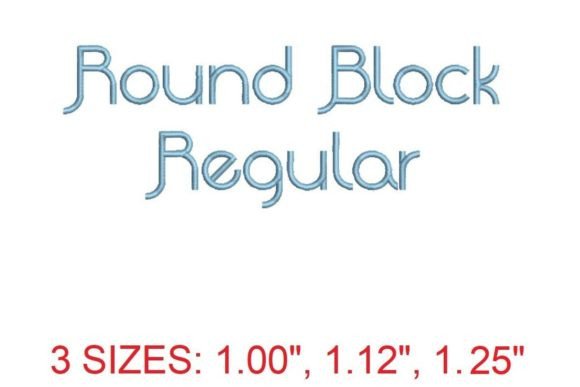
Round Block Regular Font Review
As an embroidery designer with years of experience, I'm always on the lookout for high-quality machine embroidery design that can elevate my seasonal and holiday product collections. The Round Block Regular Font from Creative Fabrica has quickly become a go-to choice for its clean, professional look and versatility across a range of handmade items. Whether you're creating personalized gifts, holiday décor, or limited-time apparel, this font offers a polished aesthetic that resonates with both customers and sellers.
First Impressions: A Timeless, Seasonal Style
From the moment I saw the Round Block Regular Font, I was struck by its balance of simplicity and sophistication. The rounded edges give it a friendly, approachable feel, while the sharp lines maintain a sense of professionalism. This makes it ideal for a wide range of holiday projects—whether you're aiming for a cozy, nostalgic vibe or something more modern and elegant.
The font's detail level is impressive. Each letter is well-proportioned and consistent, which is crucial when working on items like embroidered patches, pillow covers, or baby clothes. It doesn't feel overly ornate, which is a big plus if you're looking for something that can be used across multiple products without feeling out of place.
Emotionally, this font conveys a sense of warmth and reliability. It’s perfect for back-to-school items, but also works beautifully for holiday gifts, family matching pieces, and home decor. Its neutral yet stylish appearance makes it easy to pair with different color schemes and fabric textures.
Real-World Use in Holiday Embroidery Projects
When building a seasonal shop collection, the Round Block Regular Font proves to be incredibly adaptable. I've used it on sweatshirt embroidery, tote bag designs, and kitchen towel embroidery with great success. Its clean lines make it easy to read even at smaller sizes, which is essential for items like aprons or gift tags.
For Etsy sellers, this font is a game-changer. It adds a touch of class to personalized gifts and helps create a cohesive brand identity. When paired with creative mockups, it enhances the visual appeal of your listings, making them stand out in a crowded marketplace.
I’ve also found it effective for craft fair displays and limited edition apparel. The font’s clarity and consistency ensure that your finished products look professional, whether they’re sold as standalone items or part of a gift bundle.
Where to Use With Caution
While the Round Block Regular Font is versatile, there are some situations where extra care is needed. For instance, when working with small hoop sizes, the font may require some adjustments to avoid crowding. Tiny lettering can lose clarity, so it's best to test it on the intended fabric before committing to a large batch.
On thick towels or dark fabrics, the font might not show up as clearly as on lighter materials. Using the right thread colors and ensuring proper stitch density can help mitigate this. Similarly, metallic threads or stretchy garments may require additional stabilizer to prevent distortion during washing.
Impact on Seasonal Appeal and Customer Trust
The Round Block Regular Font has a strong emotional impact on buyers. Its clean, readable style builds trust, especially when used for personalized gifts or family items. Customers appreciate the attention to detail, which translates into higher perceived value and better word-of-mouth referrals.
In the holiday season, when shoppers are looking for meaningful, high-quality items, this font helps reinforce the idea that your products are thoughtfully made. It enhances visual recognition, making your brand more memorable and increasing engagement on social media and in online marketplaces.
For small shop products, the font supports brand consistency across different items. Whether you're selling embroidered patches, pillow covers, or holiday apparel, using the same font creates a unified look that appeals to a broader audience.
Practical Tips for Embroidery Designers
Before finalizing any project with the Round Block Regular Font, I recommend testing thread colors on both light and dark fabrics. This ensures that the font looks its best no matter the background. Checking stitch density is also key—too much or too little can affect the overall appearance.
Always confirm the hoop size required for your design and use the appropriate stabilizer for the fabric type. Creating realistic mockups before stitching can save time and prevent costly mistakes. After stitching, take a close look at the details to ensure everything is clean and consistent.
Finally, plan your color palettes carefully. The font works well with a variety of hues, but choosing the right combination can make a big difference in the final product. Make sure to review the Creative Fabrica product details and licensing terms before selling any finished seasonal products.
Whether you're an Etsy seller, a craft fair vendor, or a small business owner, this font offers the flexibility and quality needed to create appealing, high-value items that resonate with holiday shoppers. With proper care and thoughtful application, the Round Block Regular Font can help elevate your seasonal collections and support your creative goals.